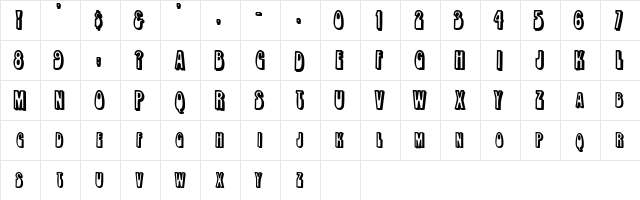
RobleSCapsSSK Bold Font Preview
RobleSCapsSSK Bold
Design Context for RobleSCapsSSK Typeface
RobleSCapsSSK is a composed and adaptable typeface that performs quietly and consistently across a wide range of design contexts. The heavy weight commands attention and anchors typographic hierarchies.